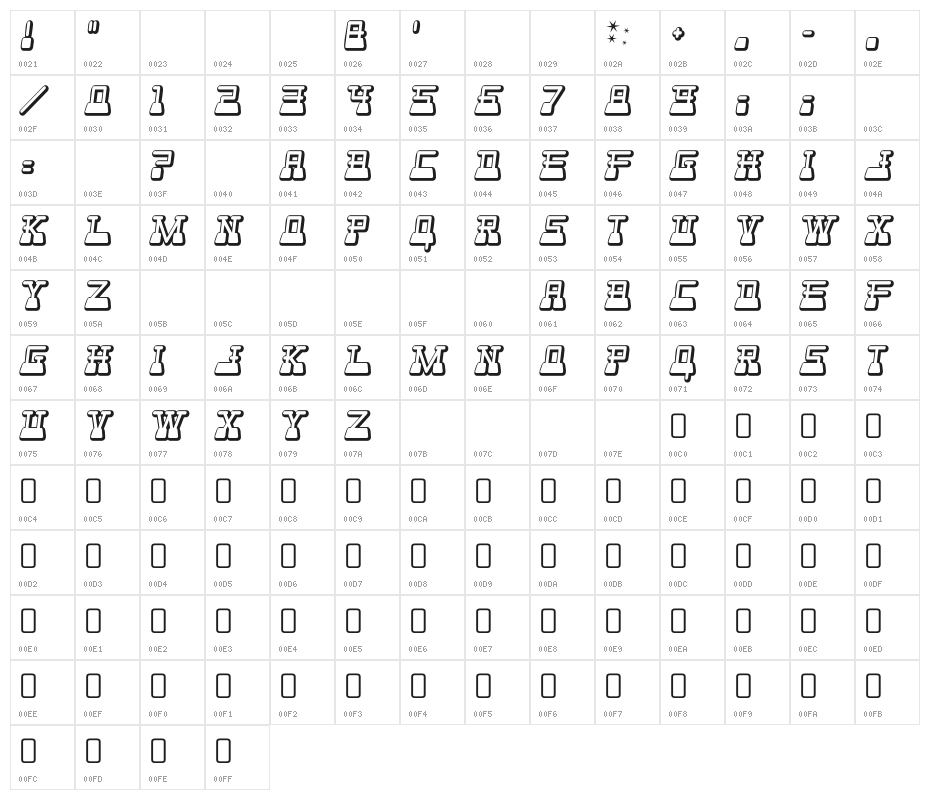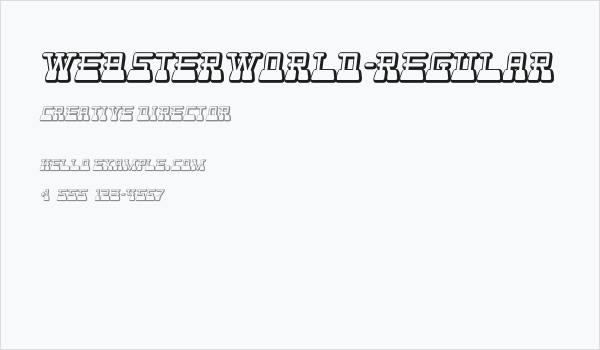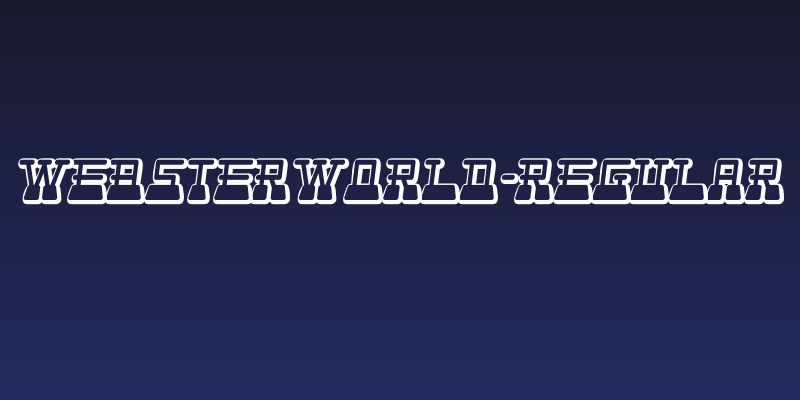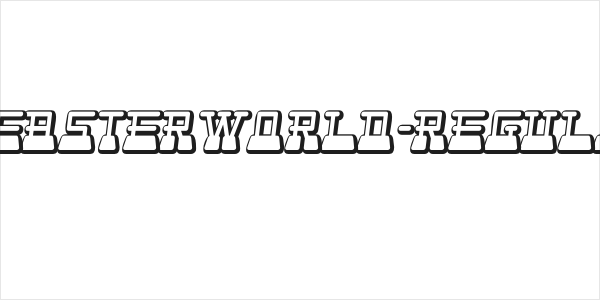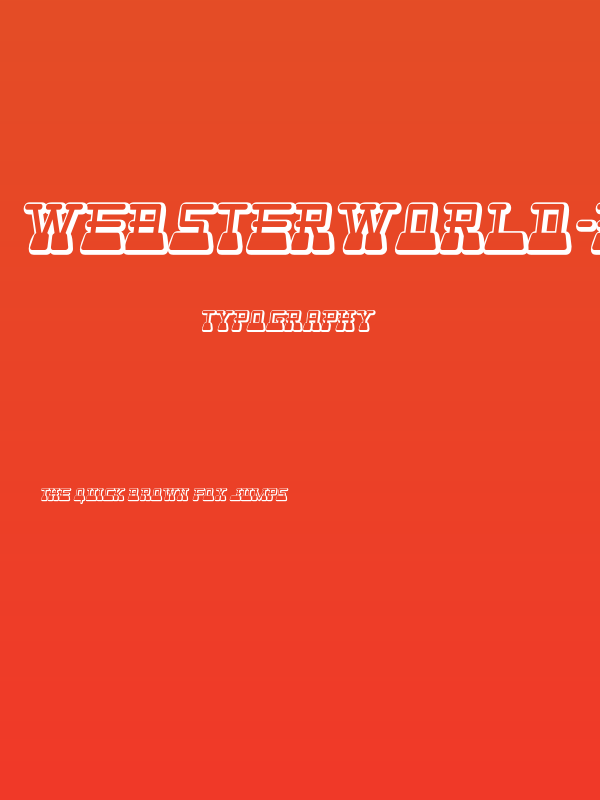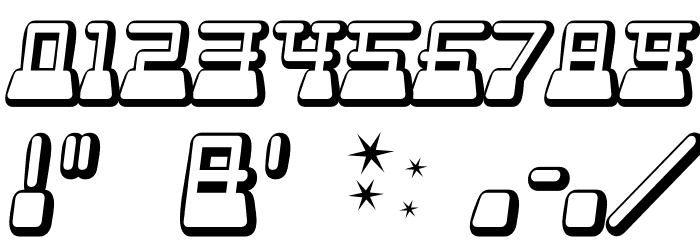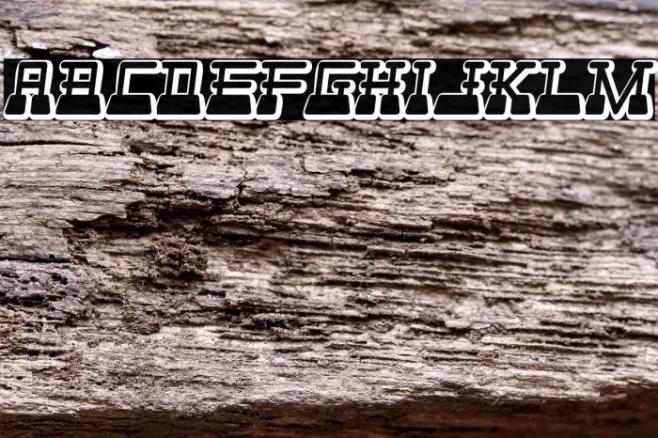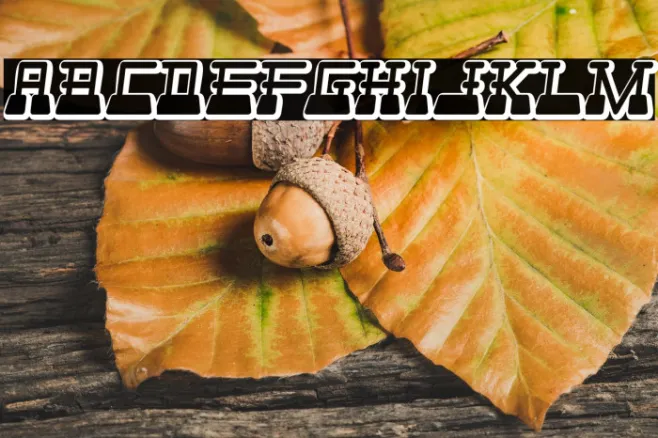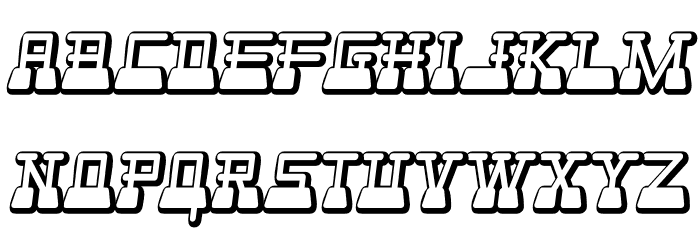
WebsterWorld-Regular Font
WebsterWorld-Regular Description
This font features a bold, three-dimensional style with a distinct shadow effect, giving each character a sense of depth and weight. The uppercase and lowercase letters are designed with a consistent blocky structure, creating a cohesive and impactful appearance. The numbers and special characters maintain this bold and structured aesthetic, ensuring uniformity across all glyphs. The font's design is reminiscent of retro or vintage styles, yet it maintains a modern edge with its clean lines and geometric shapes. The characters are evenly spaced, providing a balanced and readable text flow.
| Overall Style | Retro, Modern |
| Proposed Projects | Ideal for projects needing a strong visual impact, such as posters, logos, video game titles, or branding materials. |